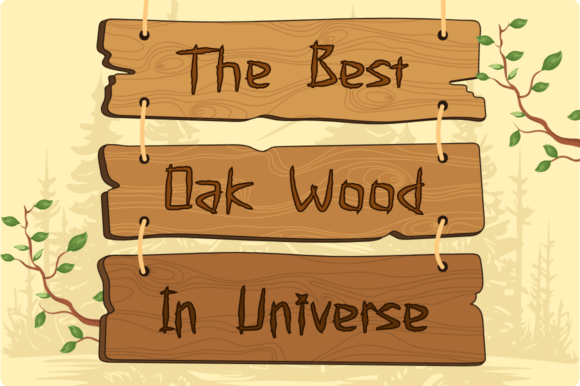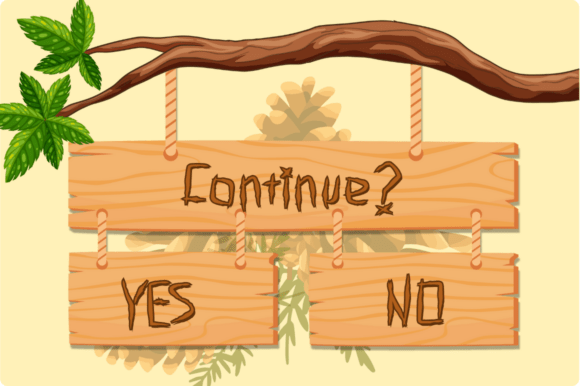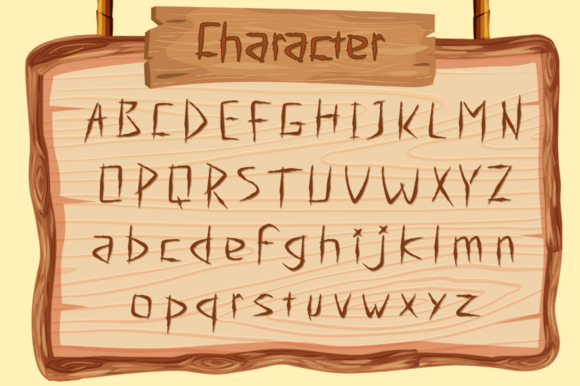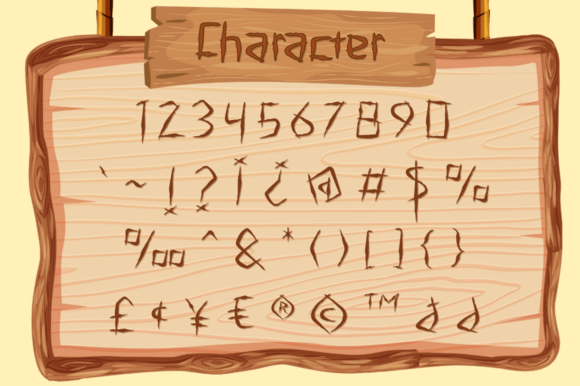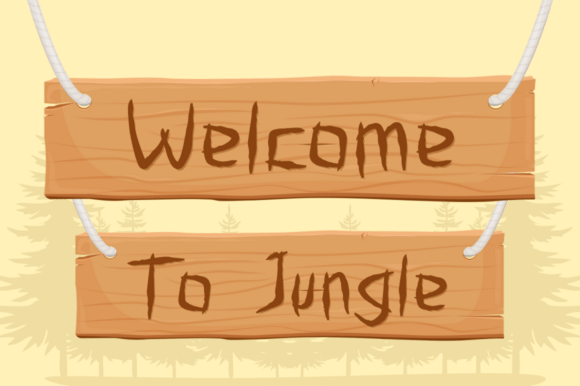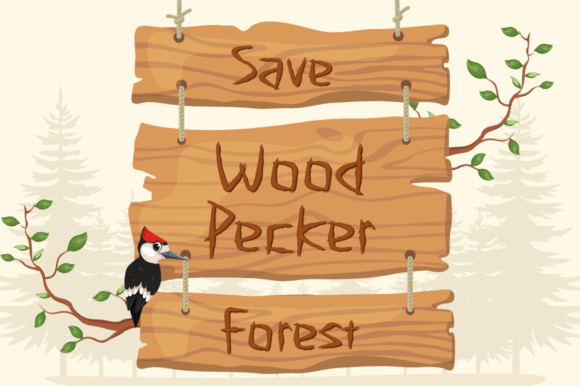
The Perfect Blend of Nature and Creativity
Have you ever stumbled upon a hidden forest trail, and the wooden signs guiding you through the woods sparked your imagination? For designers, those moments of serendipity can be a treasure trove of inspiration. The rustic charm of those wooden signs can evoke a sense of adventure and wonder, perfect for capturing the essence of a project.
That’s where the Carved Pine Wood Font comes in – a unique display font that embodies the look and feel of letters hand-carved into wood. This font is specifically designed to add a natural, woodsy charm to your creative work, making it ideal for nature-themed designs, adventure posters, and more.
Whether you’re a designer looking to add a touch of whimsy to your projects or a crafter seeking to create a one-of-a-kind piece, the Carved Pine Wood Font is a valuable addition to your toolkit. Its versatility and rustic charm make it a perfect fit for titles, packaging, and branding that needs a handcrafted forest vibe.
Carved Pine Wood Font Key Features
- Font Type: Carved Pine Wood, a unique and hand-carved font with a natural, wooden texture.
- Unique Characteristics: Features a distressed, hand-carved look with intricate details and subtle texture variations, giving it a natural, organic feel.
Designer Review: Carved Pine Wood Font
I recently had the opportunity to work with the Carved Pine Wood Font, and I must say it’s a unique addition to any design project. ✨ The font’s distressed, hand-carved look adds a touch of warmth and character that’s perfect for rustic or vintage-themed designs. ✨ The font’s versatility also makes it suitable for a wide range of applications, from headings to body text.
One of the things I appreciate about this font is its high level of customization. ✨ The font is available in various weights and styles, allowing designers to tailor their project to their specific needs. Additionally, the font’s intricate details make it an excellent choice for creating custom illustrations or graphics.
- ⚠️ Limited legibility: While the font’s distressed look is aesthetically pleasing, it can be challenging to read at small font sizes or in certain lighting conditions.
Overall, the Carved Pine Wood Font is a solid addition to any designer’s toolkit. While it may have some limitations, its unique look and high level of customization make it a great choice for designers looking to add some personality to their projects. With careful consideration and planning, this font can help take designs to the next level.
Use the Carved Pine Wood font for rustic or vintage-themed designs, such as wedding invitations, outdoor advertisements, or nature-inspired graphics.
Combine the Carved Pine Wood font with other distressed or vintage fonts to add depth and character to your designs.